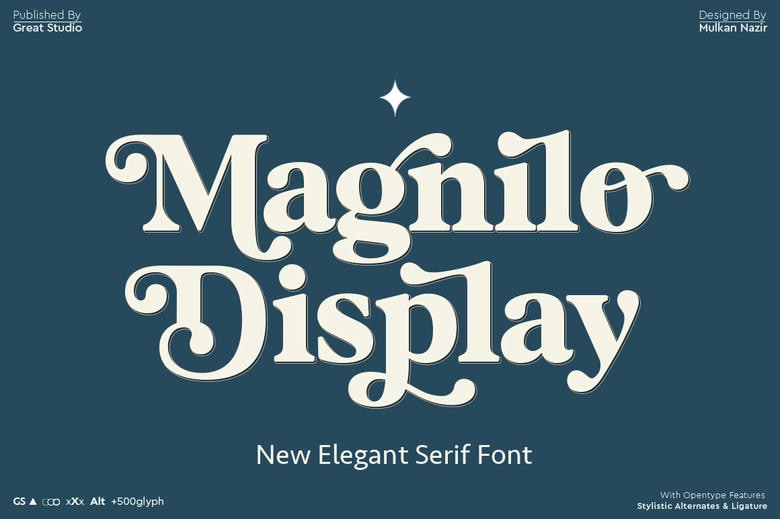
Magnilo Display Font
Magnilo Display is a modern Vintage Serif font, packaged with modern classy style, and with open type feature to select your favorite alphabet from numerous options of upper case and lower case to make your display look fully luxurious and elegant. This font is ideal for branding, logos, clothing branding, packaging, magazine headings, adverting, T-shirt labels, post cards and the like.
Magnilo Display Serif Font